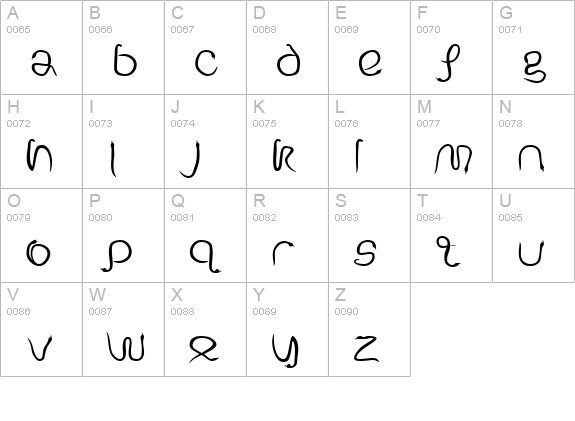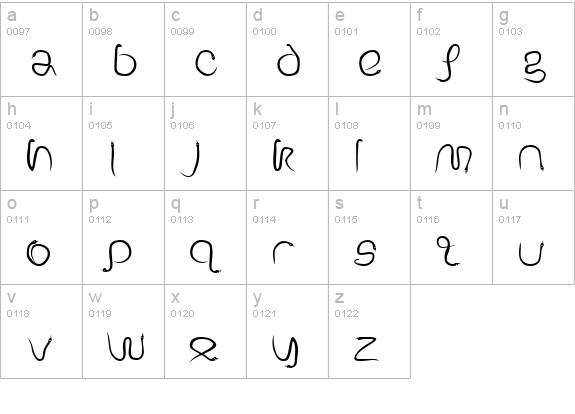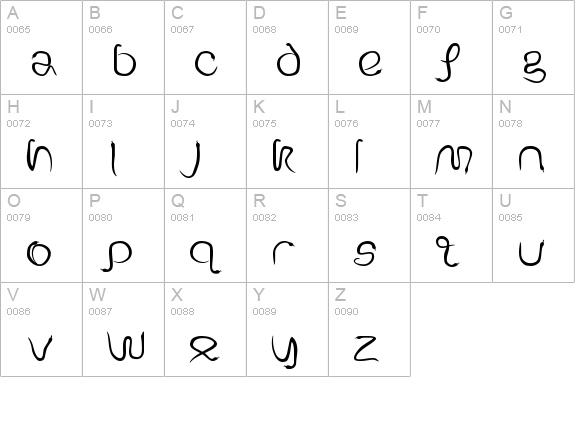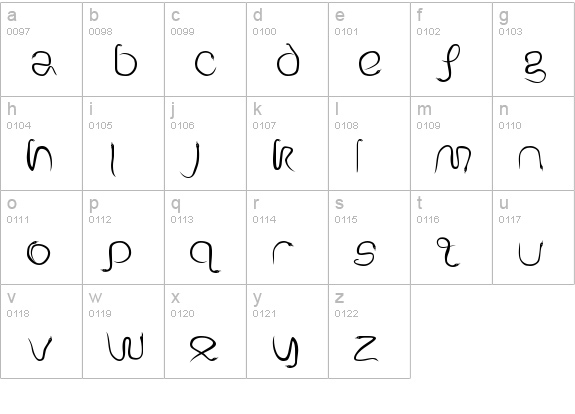
Serpent Regular Font Details
Serpent Regular is the standard, neutral variant in the Serpent typeface family \xE2\x80\x94 well suited to general body text, paragraphs, and standard typographic work.
Serpent Regular is a versatile and elegant font that embodies the perfect balance between modernity and classic appeal. With its sleek lines and sophisticated curves, this typeface is a true testament to the art of typography. Designed with meticulous attention to detail, Serpent Regular exudes a sense of professionalism and refinement that is perfect for a wide range of design projects. Whether you're working on a logo, branding materials, or a website, this font will effortlessly elevate your work to new heights. The clean and legible letterforms of Serpent Regular make it a dream to read, ensuring that your message is delivered with clarity and impact. Its timeless design allows it to seamlessly adapt to any context, whether it be print or digital. What makes Serpent Regular even more appealing is that it is available for free. Yes, you read that right. This exceptional font is freely available to download at FontsMarket.com. So, you can enhance your designs and captivate your audience without having to spend a dime. Don't miss out on the opportunity to add Serpent Regular to your font collection. Its versatility, elegance, and the fact that it's free make it an absolute must-have for any designer or typographer. Download it today and experience the transformative power of this remarkable font.